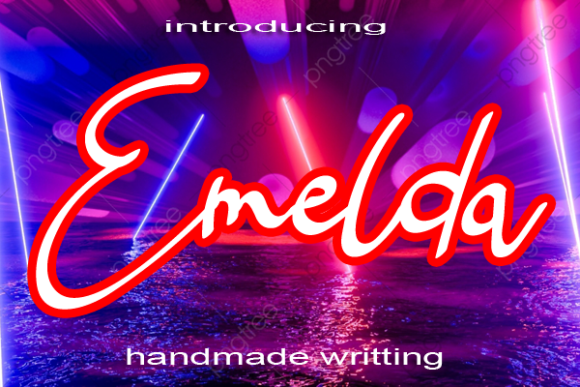
Unleash the enchanting beauty of your designs with Emelda Font, a captivating script font that captures the allure of timeless calligraphy in a contemporary setting. Prepare to be mesmerized by its exquisite curves and delicate strokes that effortlessly infuse a touch of elegance into every project.
Immerse yourself in the world of Emelda Font and discover its versatility. Its ability to seamlessly adapt to any design concept makes it a valuable asset for both personal and professional projects. Unleash your creativity and witness the transformation of your designs as they take on a life of their own.
With Emelda Font, intricate details and smooth lines dance harmoniously to create a visual masterpiece. Let your imagination soar as you craft stunning invitations, greeting cards, social media posts, and branding materials that leave a lasting impression. Its versatility shines through, making it the perfect choice for logos, posters, and even website designs.
Step into a winter wonderland with Emelda Font. Its captivating strokes evoke the magic of Christmas, making it the ideal choice for festive designs that capture the spirit of the season. Whether it's a heartwarming holiday card, an eye-catching Christmas poster, or a website that exudes the warmth of the holidays, Emelda Font brings the yuletide cheer to life.
Experience the joy of crafting designs that resonate with your audience. Emelda Font's charming personality adds a touch of sophistication and elegance to any project. Its ability to convey warmth, happiness, and a sense of celebration makes it the perfect choice for creating designs that connect with hearts and leave a lasting impression.